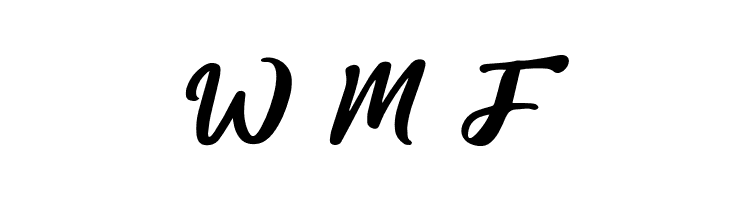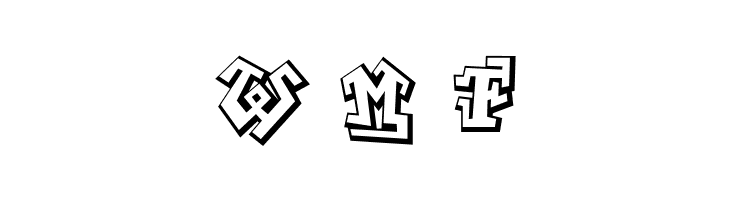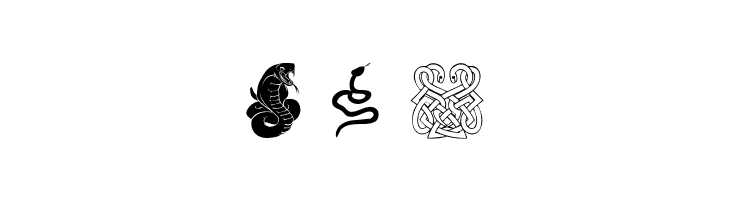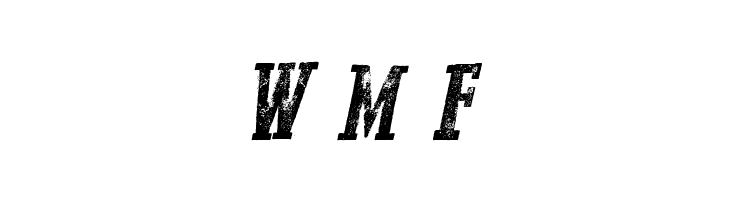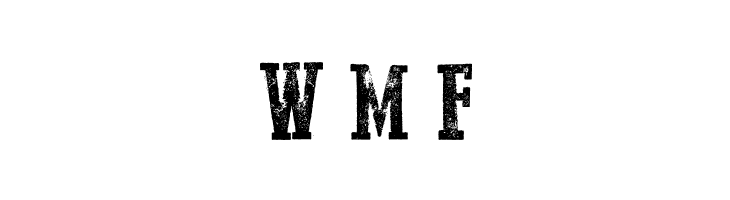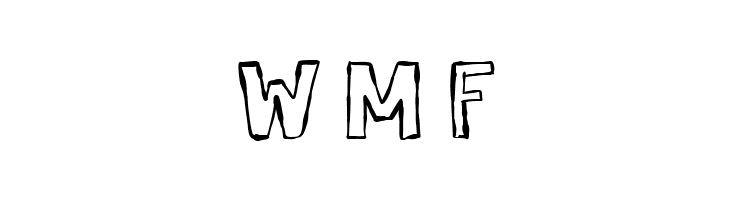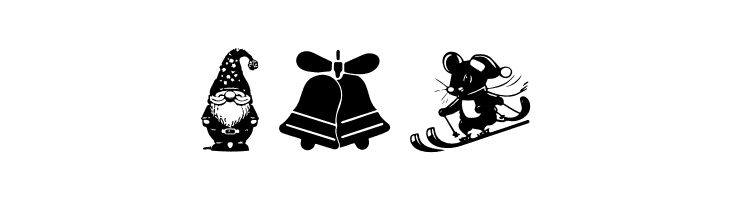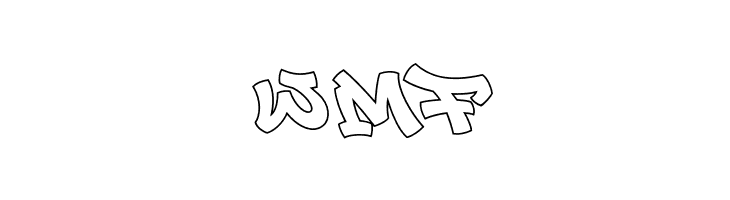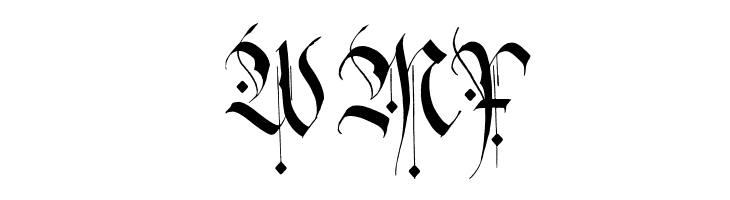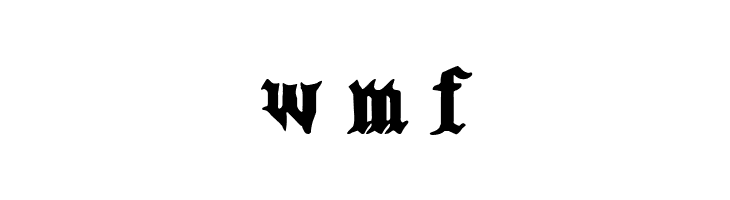
A dramatic Gothic font with intricate detailing and high contrast.
A bold, cursive script font with dynamic strokes and flowing letterforms.
A bold, gothic-inspired font with sharp, jagged edges and a dramatic style.
A bold, ornate Blackletter font with gothic and medieval influences.
A vintage typewriter-style font with a textured, monospaced design.
A bold, graffiti-style font with angular, dynamic letterforms and a three-dimensional effect.
A decorative icon font featuring hand-drawn planets and celestial bodies.
A decorative, snake-themed font with artistic, bold designs.
A playful, chalk-like font with a hand-drawn, textured appearance.
A classic serif font with Renaissance-inspired elegance and moderate contrast.
An ornate Blackletter font with intricate, gothic-inspired letterforms.
A bold, graffiti-inspired font with dynamic, expressive strokes.
A bold, ornate Blackletter font with sharp, angular lines and historical elegance.
An ornate Blackletter font with bold, angular strokes and decorative elements.
A classic blackletter font with intricate, angular designs and dramatic flourishes.
A retro, pixelated font with a bold, blocky design ideal for vintage digital themes.
A bold, italicized font with a distressed, vintage Western style.
A bold, distressed slab serif font with a vintage Western aesthetic.
A rugged, hand-drawn font with an ancient, carved appearance.
A chaotic, ransom note-style font with high contrast and an edgy, rebellious vibe.
A festive decorative font featuring charming Christmas-themed symbols.
A bold, graffiti-inspired font with dynamic, flowing lines and an urban street art aesthetic.
A traditional blackletter font with intricate detailing and a historical aesthetic.
A bold, jagged font with a rebellious punk aesthetic.
A bold, blocky font with a retro, pixelated style.
A pixelated, retro-style font inspired by early digital displays.
A traditional blackletter font with intricate detailing and dramatic flourishes.
A traditional Blackletter font with ornate, gothic letterforms and high contrast.
A bold, Gothic-inspired font with sharp, angular characters and a medieval flair.
A bold, ornate blackletter font with high contrast and intricate detailing.
A bold, Gothic-style font with intricate details and high contrast, perfect for dramatic and historical themes.
A bold, intricate Blackletter font with high contrast and decorative elements.
An ornate Blackletter font with intricate, angular letterforms.